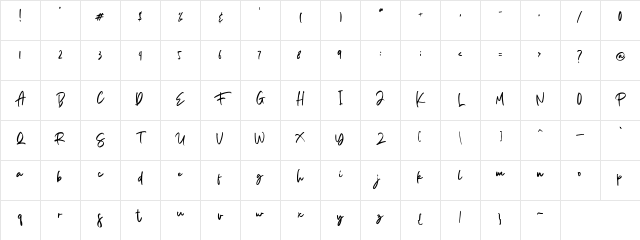
Aedesty Regular Free Font
Aedesty Regular
Foundry: MasAnis
Designer: Mas Anis
Design Context for Aedesty
Aedesty is a composed and adaptable typeface that performs quietly and consistently across a wide range of design contexts.